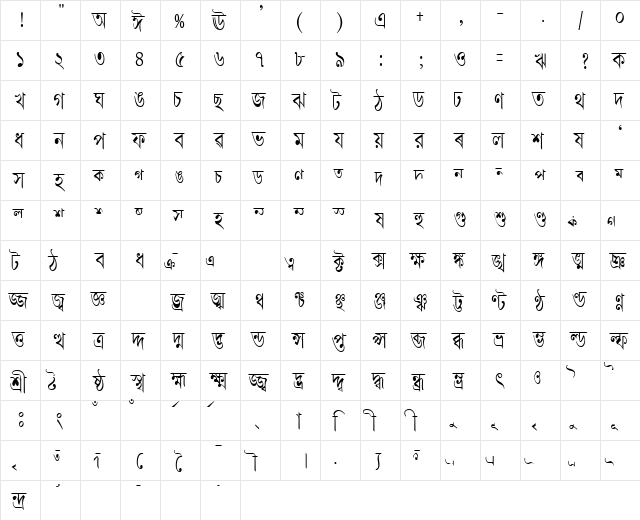
AkrutiBngAnand Normal
Design Context for AkrutiBngAnand Typeface
AkrutiBngAnand offers clean, dependable letterforms without strong stylistic allegiance, making it a practical choice for designers who need flexibility.